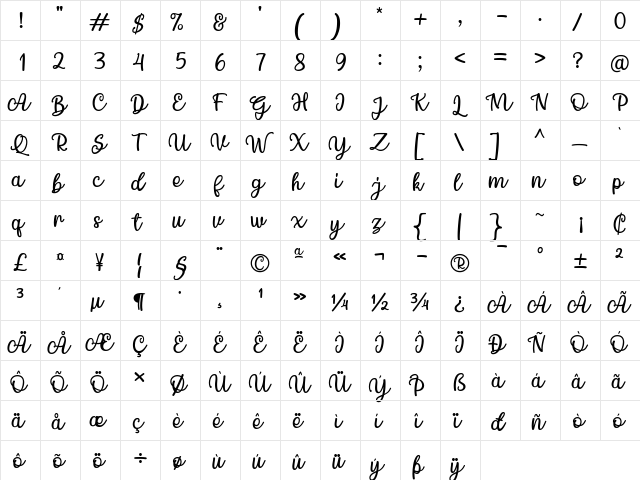
Chamomile Regular
| Foundry | 7NTypes |
| Designer | Dreamink; Dani; Situjuh Nazara |
Design Context for Chamomile Typeface
Chamomile is a composed and adaptable typeface that performs quietly and consistently across a wide range of design contexts.